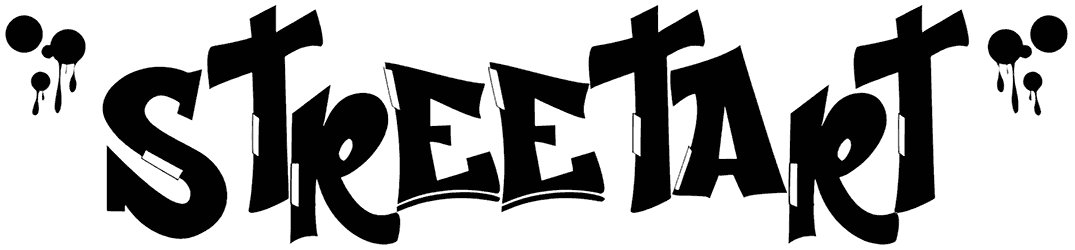
Mexican Pride Font
One of the choices for designing graffiti is using a carved font. Mexican Pride has thin and crooked characters and all of its elements give off a careless and cool vibe to the reader. This edgy tattoo font only supports capitalized characters and will do a street-style makeover to your texts.
Mexican Pride, tipografia basada en el cholismo
Designed by: Aspek hndz